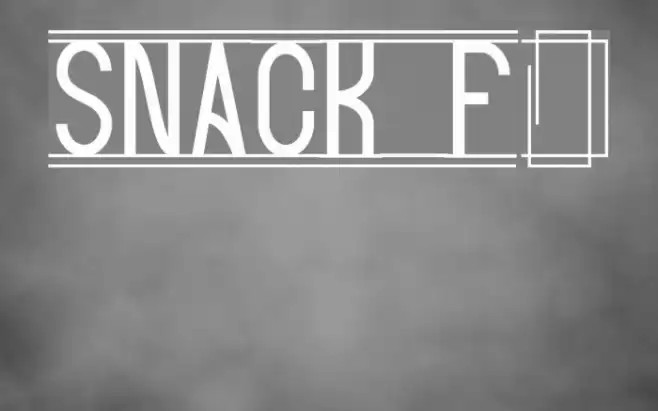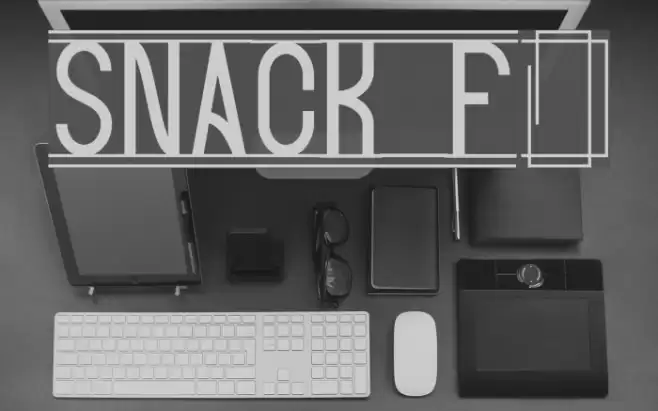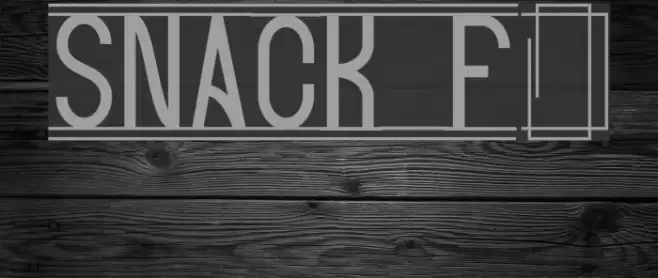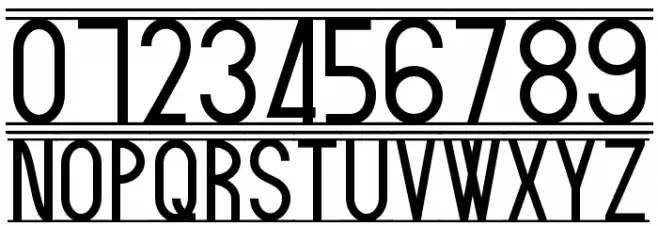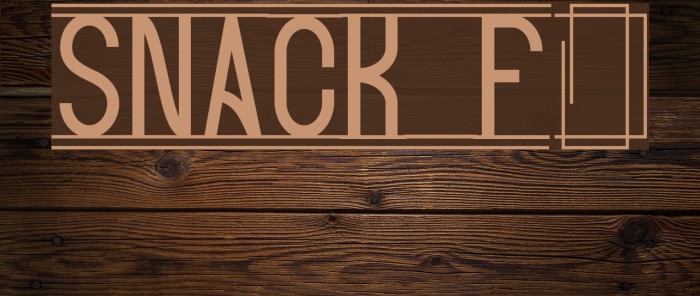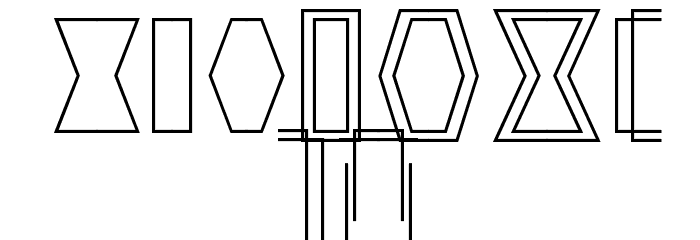
SNACK Font
SNACK Description
This font features a bold and geometric design with a strong emphasis on vertical lines and sharp angles. The uppercase letters are tall and narrow, with consistent stroke widths that create a sense of uniformity and strength. The characters are enclosed within horizontal lines, adding a structured and architectural feel. The numbers follow the same design principles, maintaining the bold and linear aesthetic. This font is highly decorative, making it suitable for projects that require a striking and modern look.
A bold, geometric font with strong vertical lines and a structured, architectural style from Uncategorized fonts.
- Proposed Projects: Ideal for branding, posters, and headlines where a modern and striking appearance is desired.